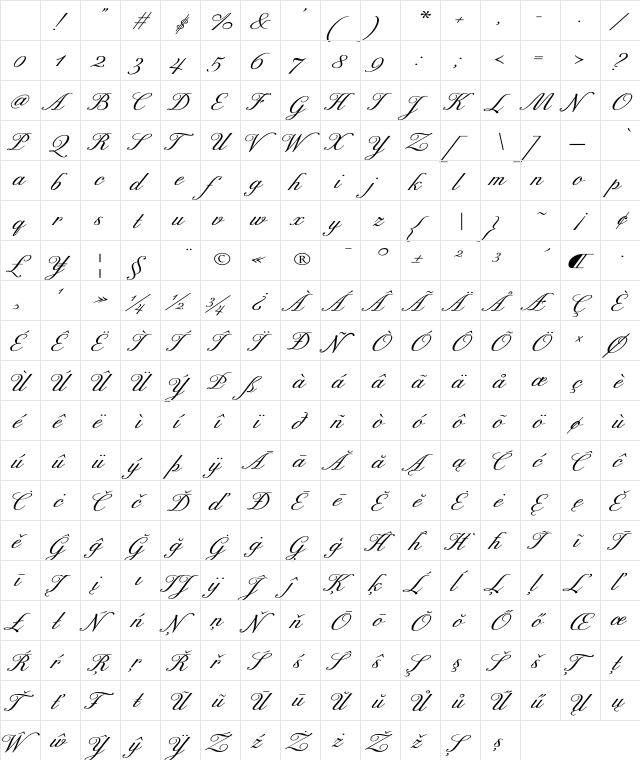
Complete Excelsor Script Bold Italic glyph index. Displaying only characters natively supported by Excelsor Script Bold Italic font.
Excelsor Script flows with the natural rhythm of handwritten lettering, making it ideal for designs that call for warmth and personal expression. Its bold stroke weight gives it real presence on the page.
Font Pairing: Combine Excelsor Script with a simple geometric sans for maximum contrast - the tension between flowing curves and clean structure is a classic typographic pairing.
Pro Tip: Use Excelsor Script for short runs of text - names, titles, or taglines. Extended body copy in script faces tires the eye quickly.